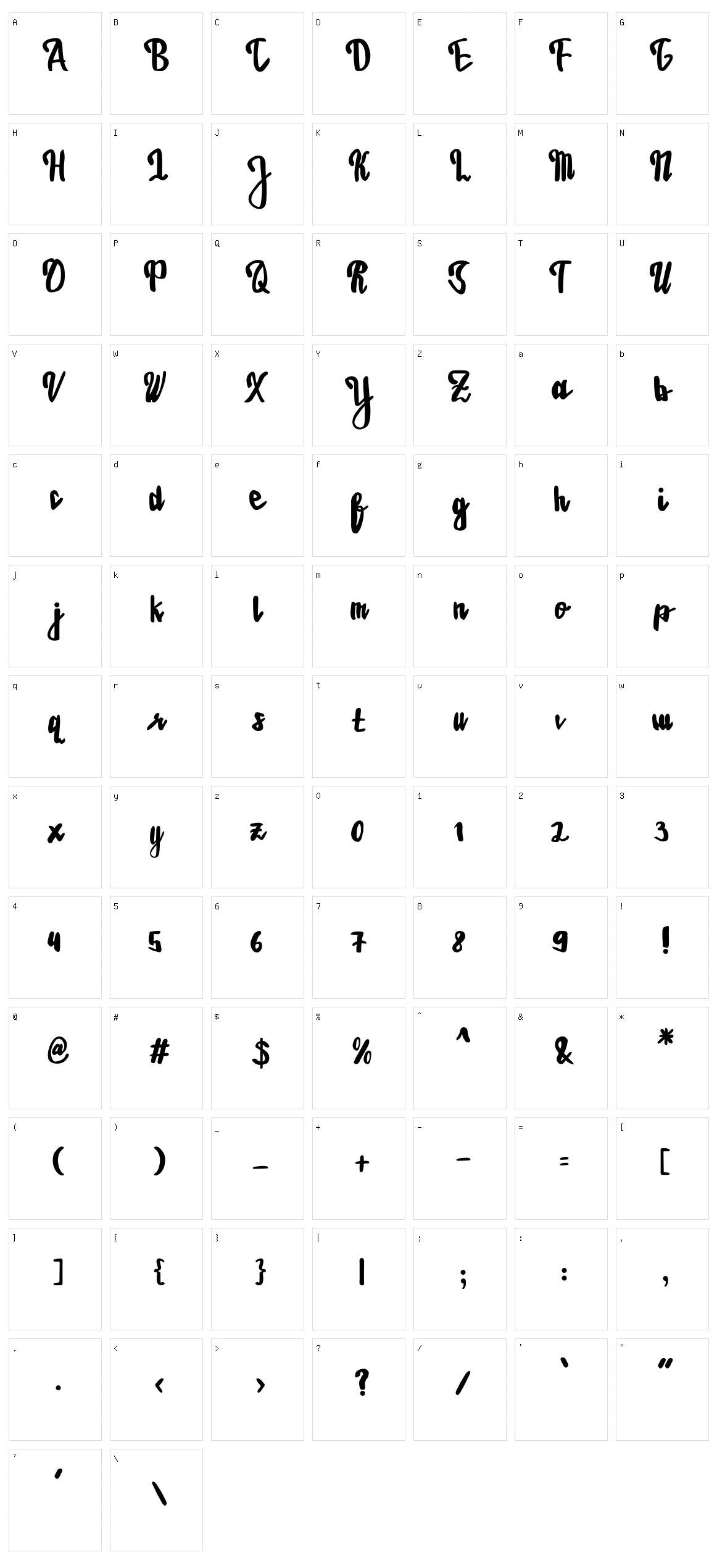
Estrellasa is a Modern Script Handwritten Font make this Font looks Minimalist, Stylish and Natural. This Font is suites for many Project that need Handwritting Taste, such as logos & branding, invitation, stationery, wedding designs, etc.